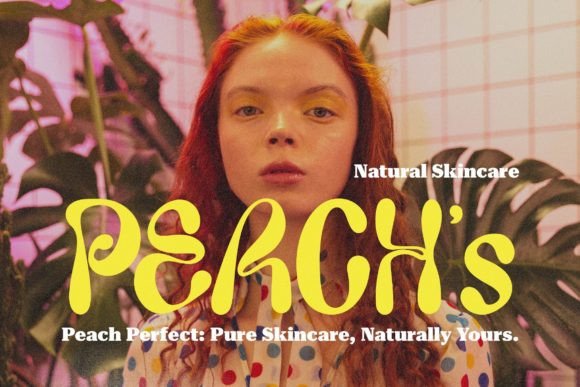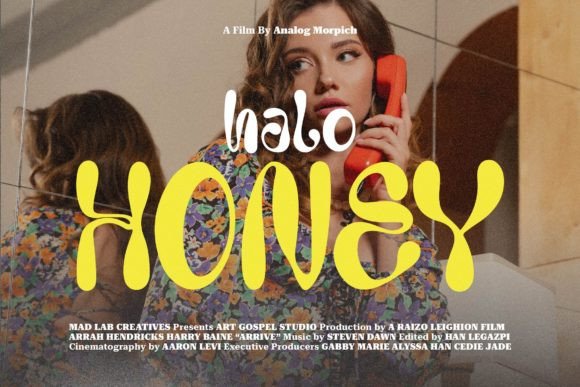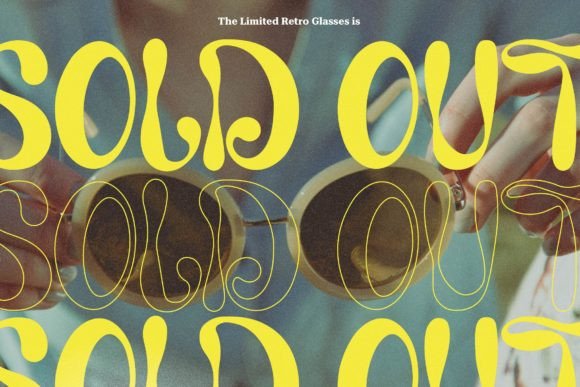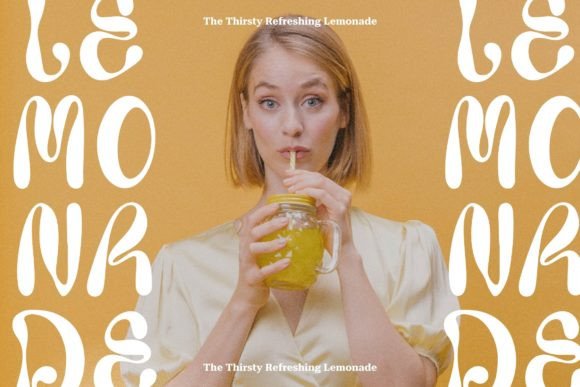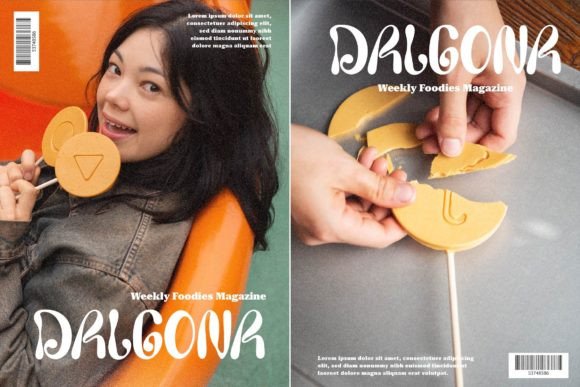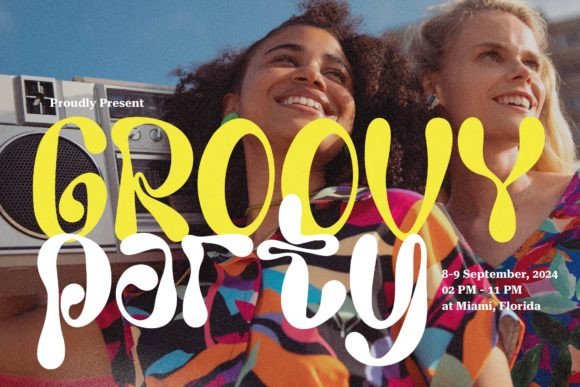
The Groovy World of Analog Morpich Font
I’ll never forget the design project that led me to discover the Analog Morpich font. I was working on a retro-themed poster for a client’s vintage-inspired clothing line, and I was struggling to find the perfect font to capture the essence of the 1960s. The client wanted something fun, bubbly, and nostalgic, but I was coming up blank. That’s when I stumbled upon Analog Morpich, and it was love at first sight! ✨
An Honest Review of Analog Morpich
So, what makes Analog Morpich so special? Let’s dive into the good stuff and a few quirks I’ve discovered.
- ✅ Unique Retro Style: Analog Morpich has a one-of-a-kind, groovy vibe that’s perfect for adding a touch of whimsy to your designs.
- ✅ Bubbly and Playful: The font’s bubbly, psychedelic feel is sure to bring a smile to your audience’s faces.
- ✅ Vintage-Inspired: With its vintage style, Analog Morpich is ideal for projects that require a nostalgic touch.
- ✅ Highly Versatile: This font can be used for a wide range of projects, from posters and flyers to social media graphics and more.
While Analog Morpich is an amazing font, there are a few things to keep in mind:
- ⚠️ Limited Use in Small Sizes: Due to its intricate design, Analog Morpich can become difficult to read in very small sizes.
- 🤔 Kerning Issues: Some users have reported kerning issues when using the font in certain design software.
The Backstory Behind Analog Morpich
While the true origins of Analog Morpich are shrouded in mystery, it’s said that the font was inspired by the psychedelic posters of the 1960s. The designer, who wishes to remain anonymous, was allegedly a huge fan of the era’s music and art scene. They wanted to create a font that captured the essence of that groovy time, and Analog Morpich was born.
Q: What type of projects is Analog Morpich best suited for?
A: Analog Morpich is perfect for projects that require a fun, retro touch, such as posters, flyers, social media graphics, and more.
Q: Is Analog Morpich a difficult font to read?
A: While Analog Morpich is a decorative font, it can be a bit challenging to read in large blocks of text. It’s best used for headlines, titles, and short paragraphs.